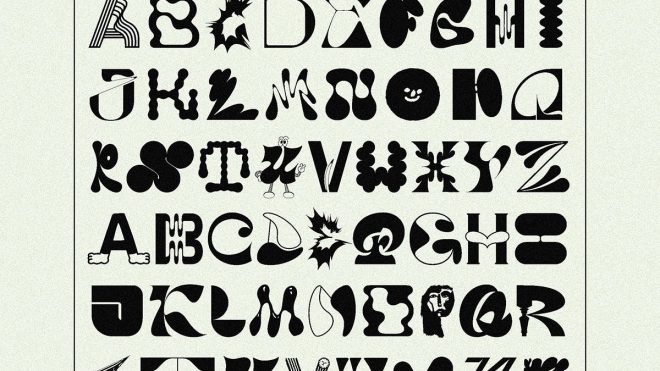
Designers from across the world contribute to Group, an eclectic charity typeface
From donation initiatives thriving on social media to a wealth of eye-catching posters from leading designers, the Covid-19 pandemic has seen a great number of charitable efforts and creative responses. Graphic designer Raissa Pardini – known for her energetic designs seen across the music industry – is bringing the two together in a new project that puts the fun in fundraising.
The project involved 37 designers, illustrators and lettering artists from around the world – Pardini included – who helped to create a new font called Group. Among the contributors are Aaron Lowell Denton, Sophy Hollington, Gabriel Alcala, Bárbara Malagoli, Dominic Kesterton, Gregory Page, and Fisk Projects. Funds raised from the newly launched typeface will go to the World Health Organisation.
Given that type-based projects involve designing across an entire alphabet, the concept presented an opportunity to work with lots of different creatives and bring together a specific corner of the community in a time of crisis. “There hasn’t been much collective group work [involving typography] going on during Covid, and I thought it would be good to put together all our work and to donate to something that can help,” Pardini says.
The letters are an eclectic mix that do away with many of the standard rules of typography, and instead inject character and artistry into each form in keeping with Pardini’s own artistic approach to typography. “Everyone came back with their own style. Some letters are very illustrative, others are more digital, so it’s quite crazy,” she says.
While most typefaces will feature both upper and lower case designs, Group comprises two sets of caps, meaning that if the same letter is displayed consecutively – the designer offers her own name as a prime example – then there can still be some variety.
The brief was fairly loose in terms of what aesthetic approach the designers took – the only rule was not to evoke the crisis itself. “We had a little mood board which was very neutral – I didn’t want to influence people too much, but also I want people to get away from something that looks like a virus or something that would remind us of anything that is happening now,” Pardini says.
The aim was to avoid “making a font inspired by a virus or even call it a ‘Covid’ sort of name. I wanted to stay away from that negativity and just highlight the fact that we were working all together – that’s why it’s called Group,” she explains.
While different designers focused on specific letters rather than across the entire typeface, Pardini aimed to honour the collaborative nature of the project by not dictating the final outcome: “Of course it wasn’t for me to decide what was good enough or not to keep. This is a collective work, so we had to trust each other.”